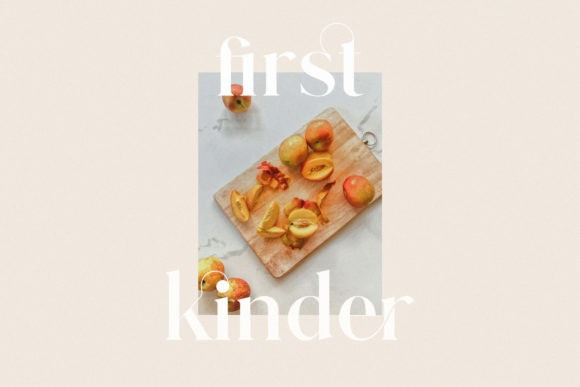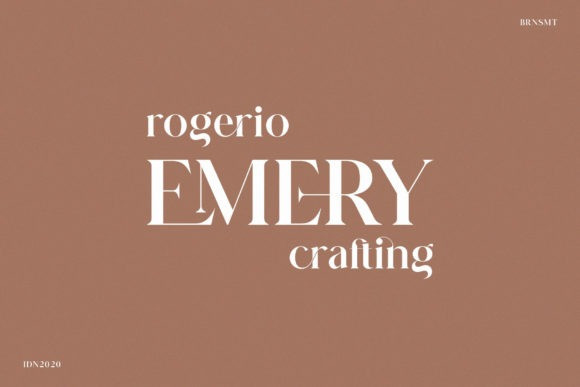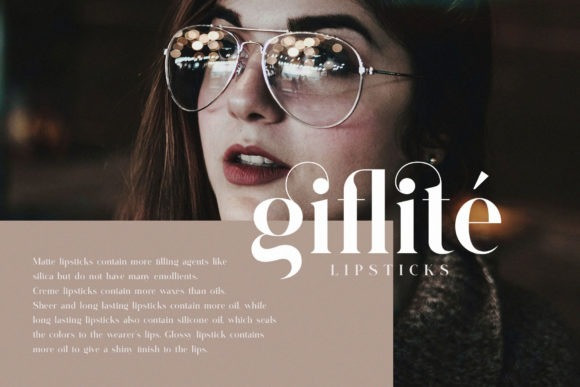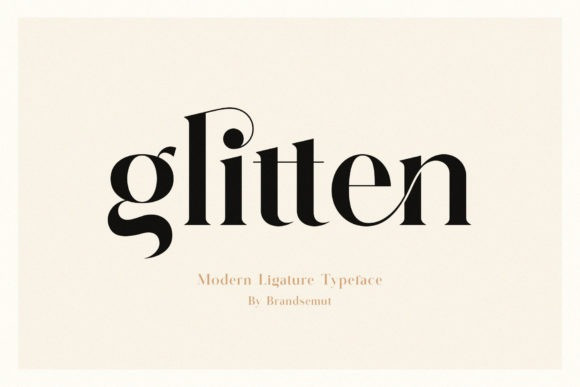
Glitten Font
Glitten Serif Font
This is serif font that inspired by the beauty, aesthetic, elegant and paris – This font is both modern and nostalgic and works great for logos, magazine, social media. Already matched up and ready to be used together for your next design! For those of you who are needing a touch of elegant, stylish, classy, chic and modernity for your designs, this font was created for you!